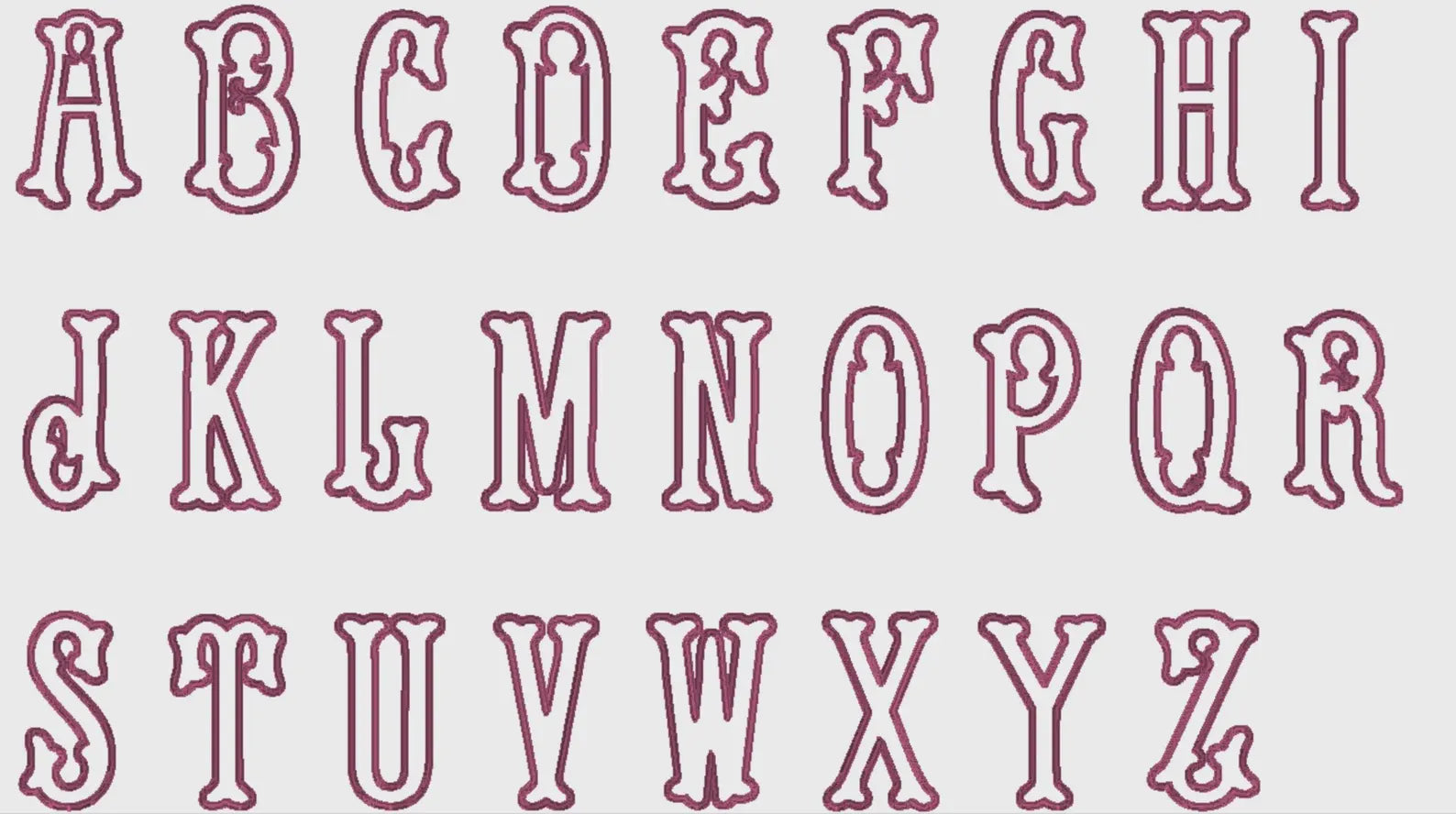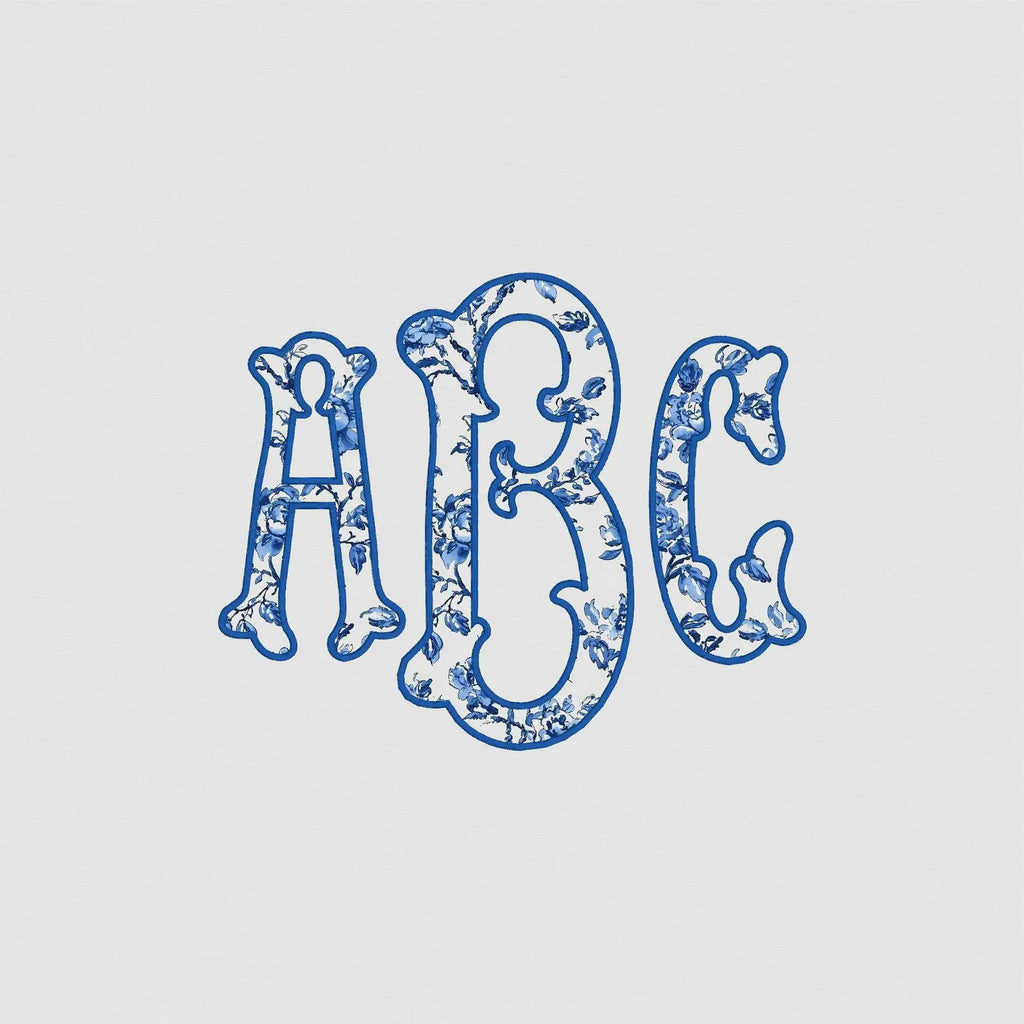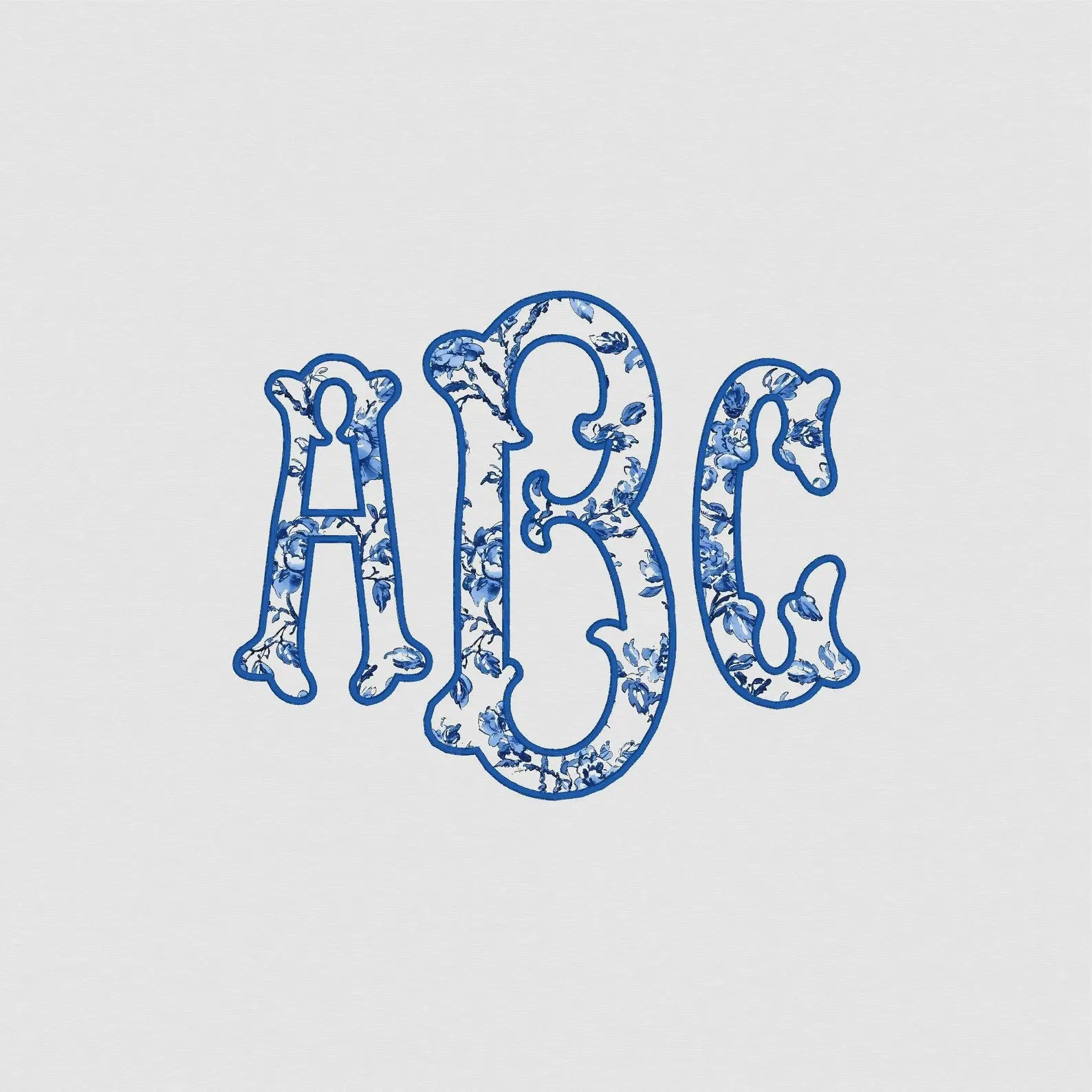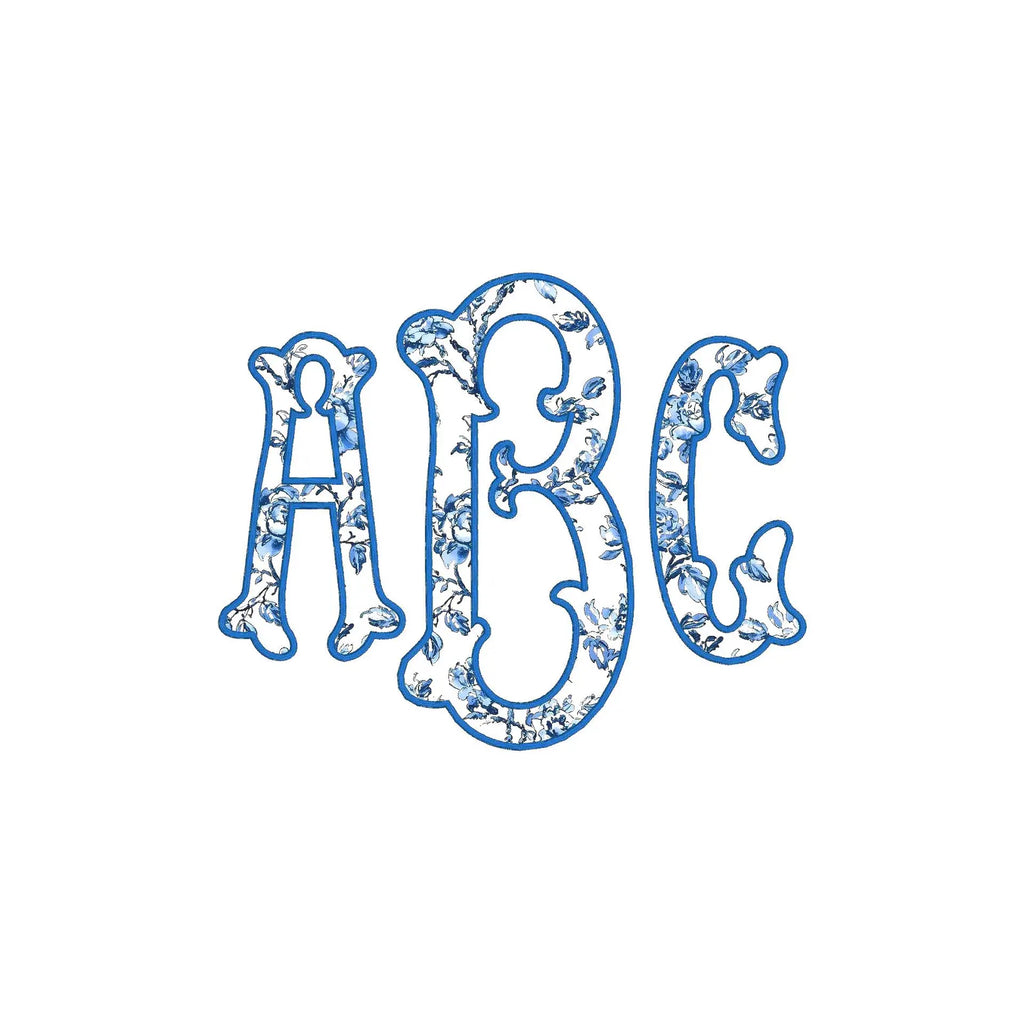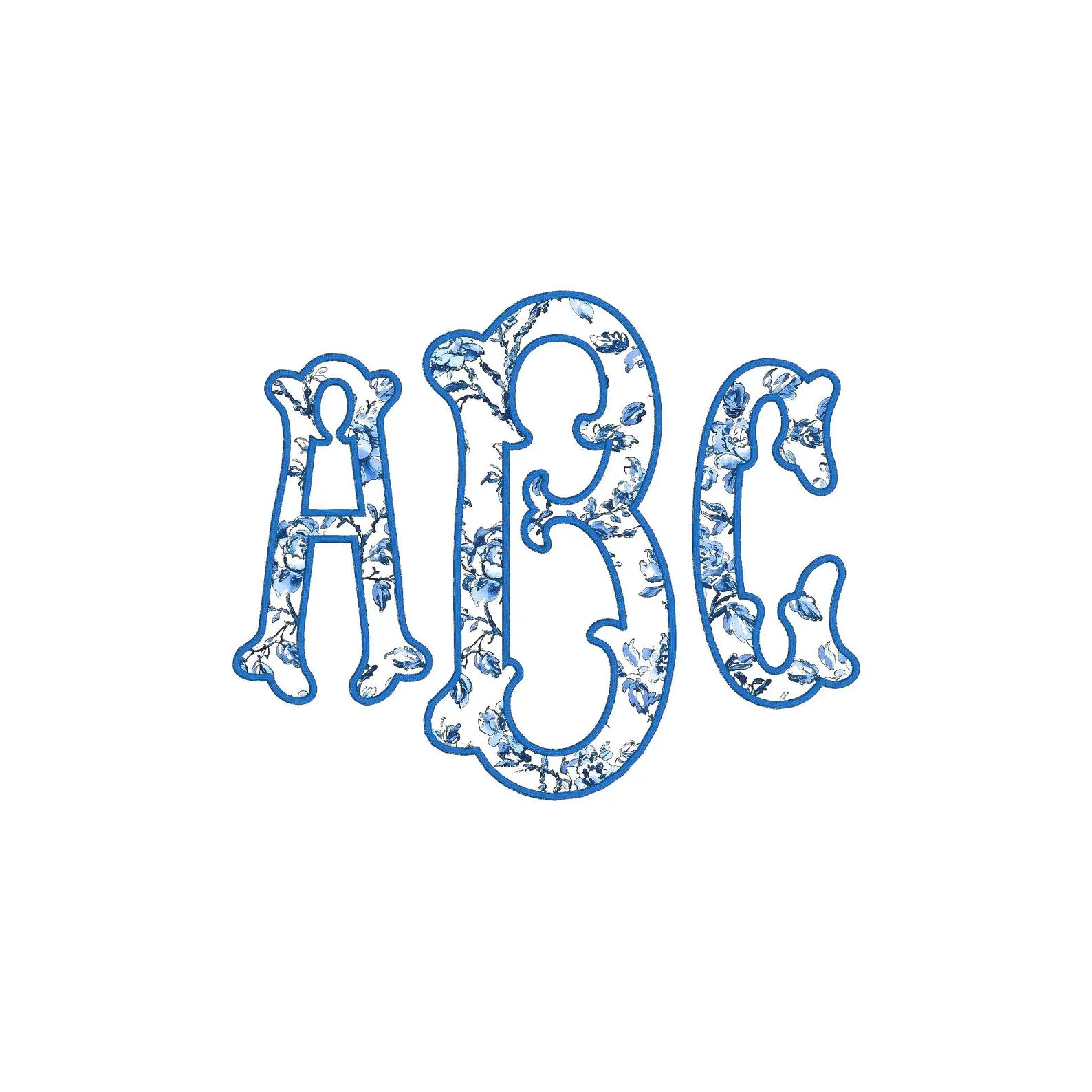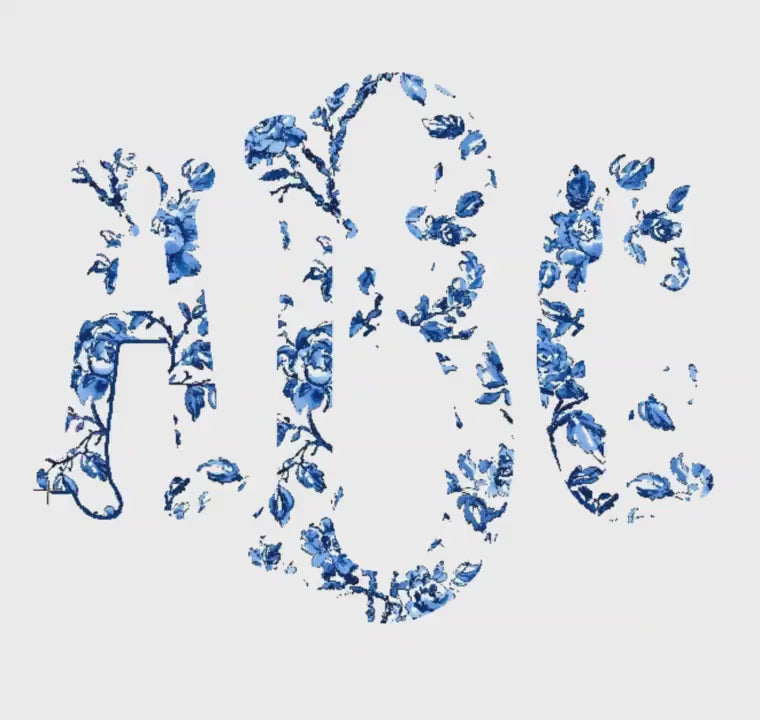
Editable Sizing Approx. 3" - 6" tall with just about every size you could need! Change center letter size to create a traditional monogram or use as a name font. Stretchable right to left as well.
Use any fabric or use as outline stitch with no appliqué fill.